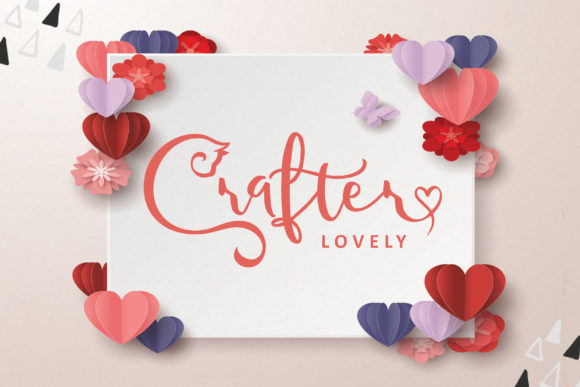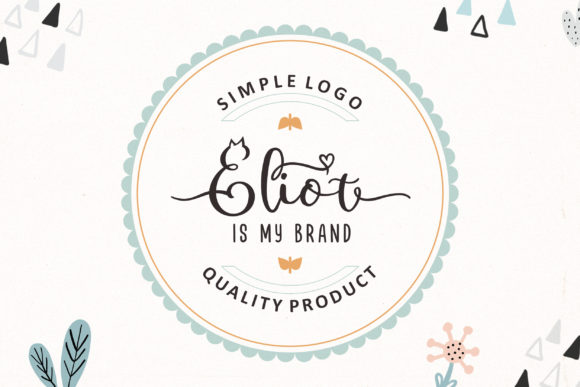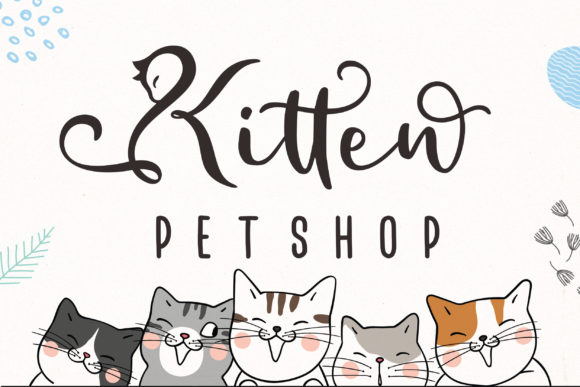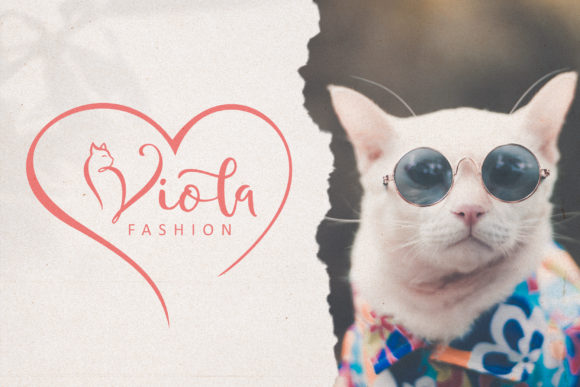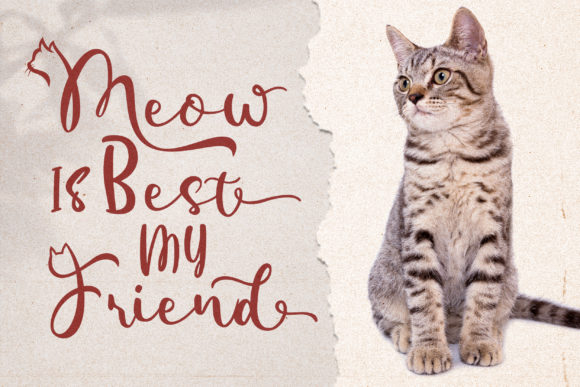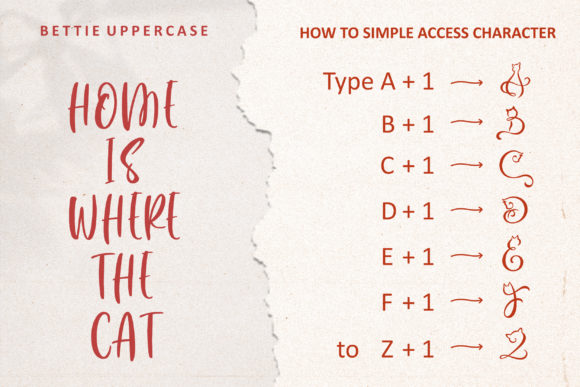
Bettie Font: Elevate Your Designs with Elegance and Sophistication
Are you looking for a font that exudes elegance, sophistication, and a touch of modernity? Look no further than the Bettie font. This beautiful, handwritten font is perfect for designers and crafters who want to add a touch of class to their projects. In this article, we’ll dive into the features and benefits of the Bettie font, and explore how you can use it to take your designs to the next level.
What is Bettie Font?
Bettie is an elegant and flowing handwritten font that is sure to capture your heart. Its beautiful, cursive lines and gorgeous glyphs make it perfect for a wide range of design projects, from wedding invitations and branding materials to packaging and digital media. What sets Bettie apart is its PUA (Private Use Area) encoding, which allows you to access all of the glyphs and swashes with ease.
Key Features of Bettie Font
So, what makes Bettie font so special? Here are just a few of its key features:
- Varying Baseline: Bettie font features a varying baseline, which gives it a natural, handwritten feel that’s perfect for creating elegant and sophisticated designs.
- Smooth Lines: The font’s smooth lines and curves create a beautiful, flowing effect that’s sure to capture your audience’s attention.
- Gorgeous Glyphs: Bettie font comes with a range of gorgeous glyphs and swashes that you can use to add a touch of elegance and sophistication to your designs.
- Stunning Alternates: The font also features stunning alternates that allow you to mix and match different characters to create a unique and personalized look.
Benefits of Using Bettie Font
So, why should you choose Bettie font for your next design project? Here are just a few benefits of using this beautiful font:
- Elegance and Sophistication: Bettie font is perfect for creating elegant and sophisticated designs that are sure to impress your audience.
- Versatility: The font’s versatility makes it perfect for a wide range of design projects, from wedding invitations and branding materials to packaging and digital media.
- Easy to Use: Bettie font is PUA encoded, which makes it easy to access all of the glyphs and swashes.
- Contemporary and Fresh: Despite its classic, calligraphic influences, Bettie font feels contemporary and fresh, making it perfect for designers who want to create modern and stylish designs.
How to Use Bettie Font in Your Designs
Using Bettie font in your designs is easy. Here are a few tips to get you started:
- Pair it with Other Fonts: Bettie font pairs perfectly with other fonts, so feel free to experiment with different combinations to create a unique and personalized look.
- Use it for Headings and Titles: The font’s elegant and sophisticated feel makes it perfect for headings and titles.
- Add Swashes and Glyphs: Don’t be afraid to add swashes and glyphs to your design to give it a touch of elegance and sophistication.
In conclusion, Bettie font is a beautiful, elegant, and sophisticated handwritten font that’s perfect for designers and crafters who want to add a touch of class to their projects. Its PUA encoding, varying baseline, smooth lines, gorgeous glyphs, and stunning alternates make it a versatile and easy-to-use font that’s perfect for a wide range of design projects. So why wait? Fall in love with Bettie font and bring your projects to the highest levels!